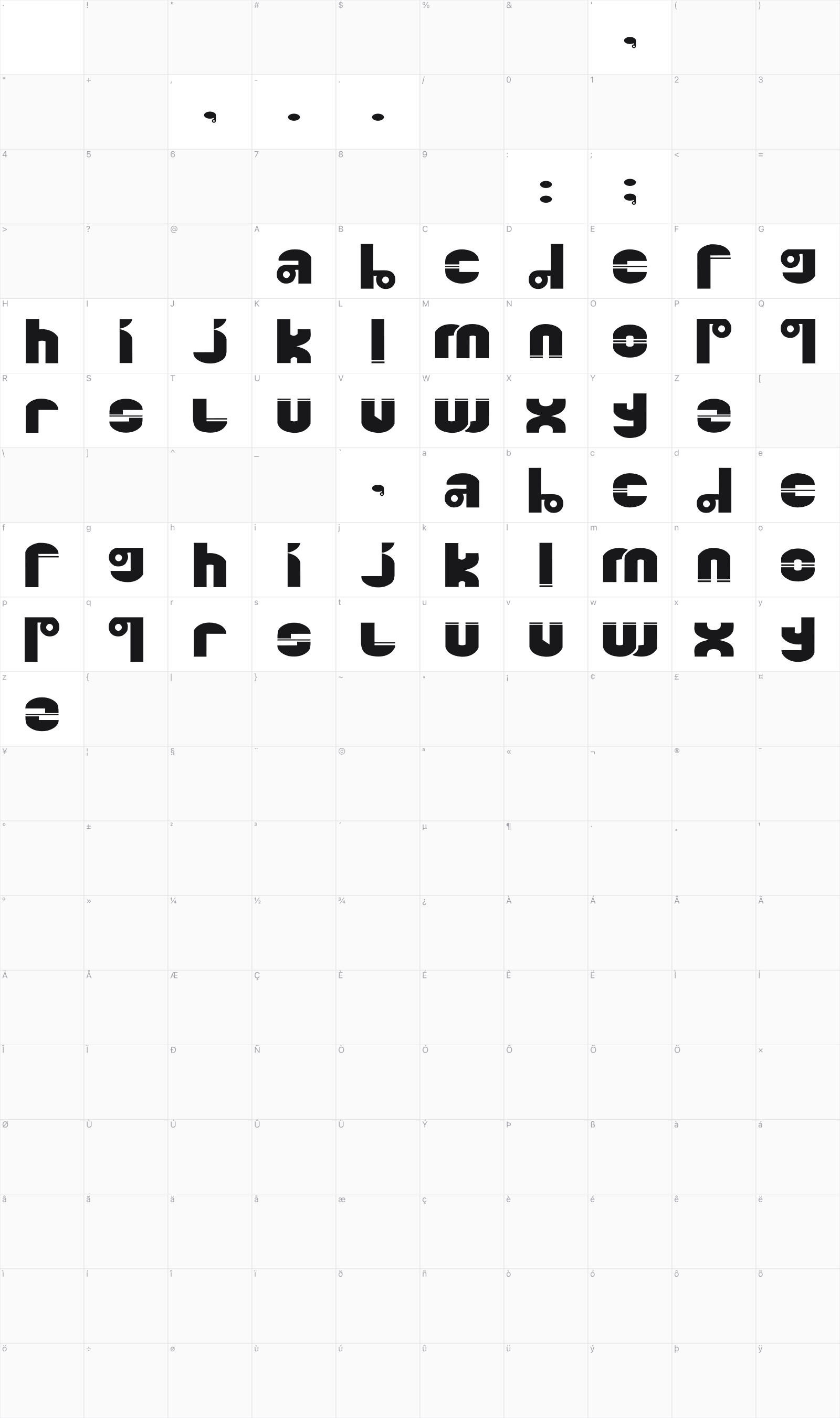
Quinkie
Quinkie is an ultra-bold novelty display face from Fontalicious with chunky, geometric letterforms that feel almost cartoonishly heavy. There's a quirky confidence to its proportions, each character stocky and exaggerated in a way that grabs attention without trying to be serious. Built for posters, headlines, and display work where sheer visual weight is the whole point.